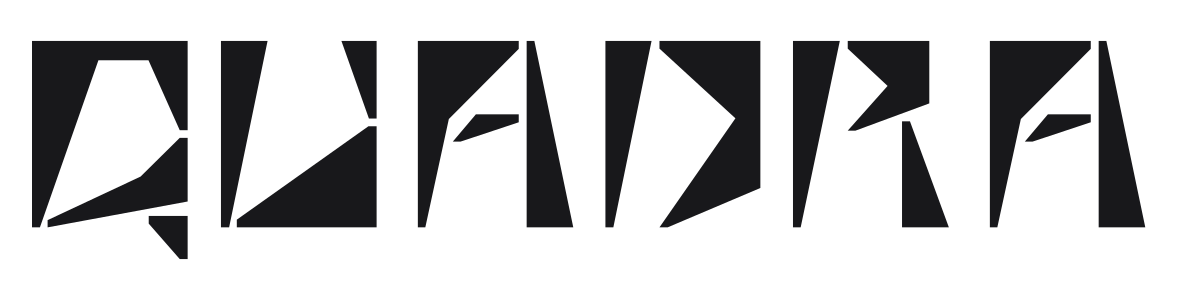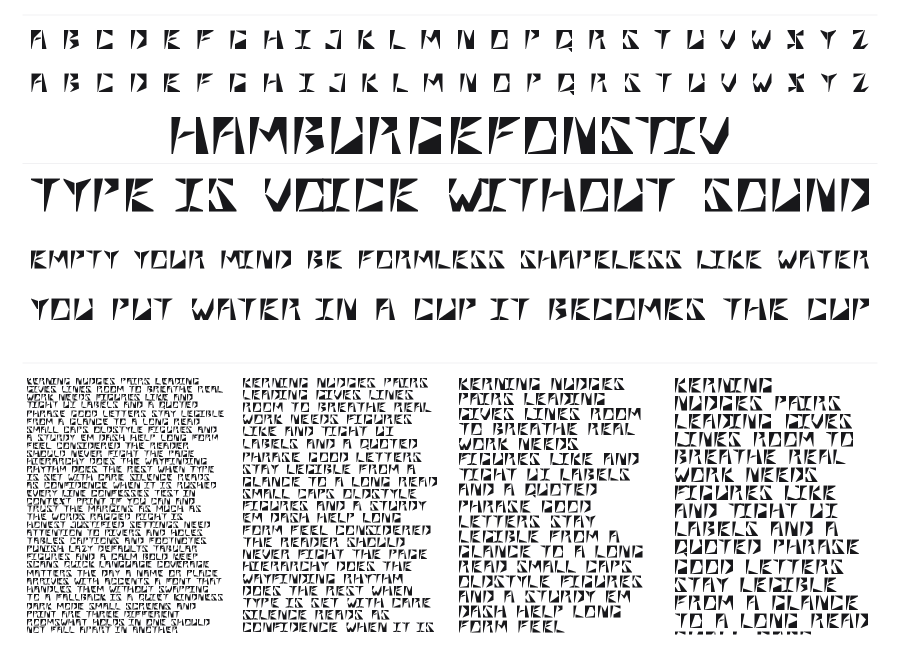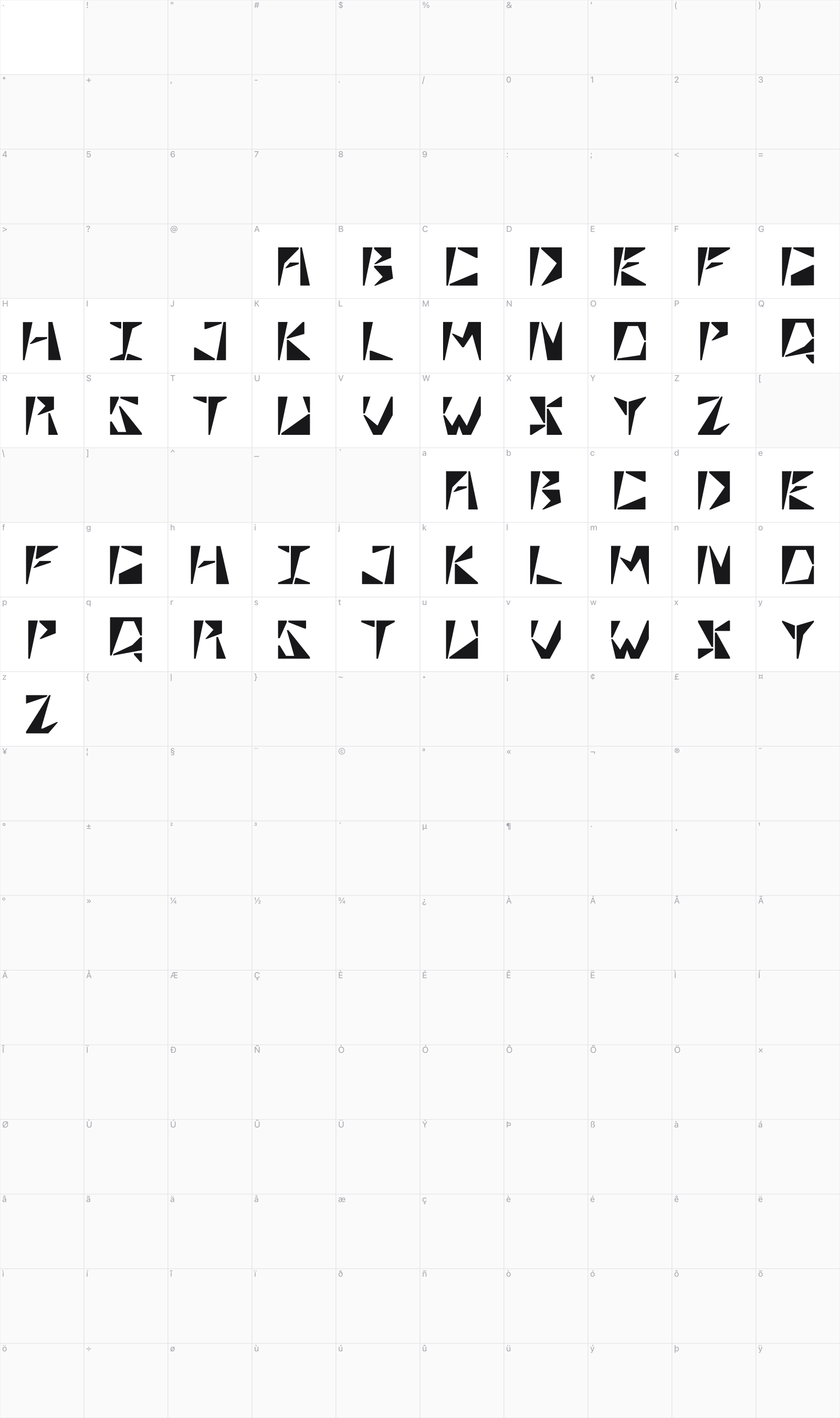
Quadra
Quadra is a heavy geometric display font where each character is violently sliced by sharp diagonal cuts, turning familiar boxy letters into fragmented shapes. The bold weight and wide proportions keep it readable at a glance, while the angular voids give it a raw, destabilized tension. It belongs on posters, album covers, and anywhere conventional type feels too comfortable.